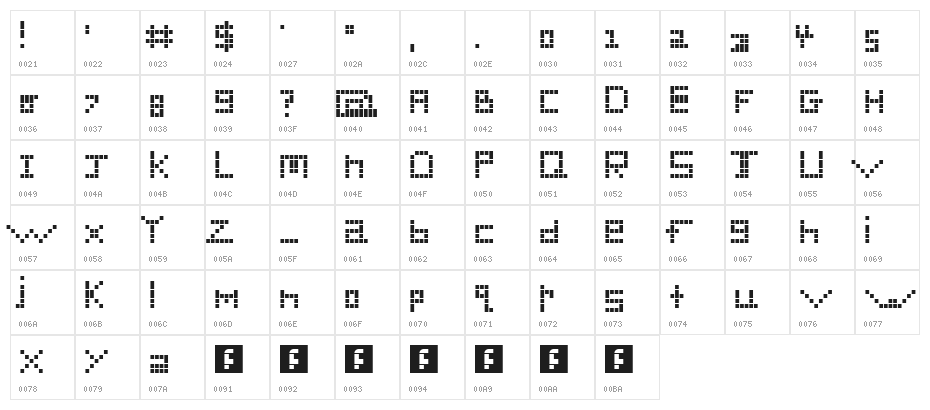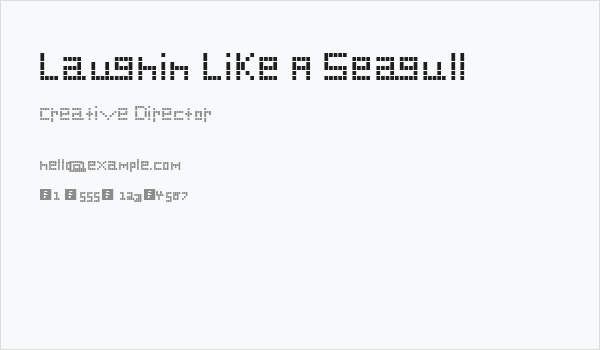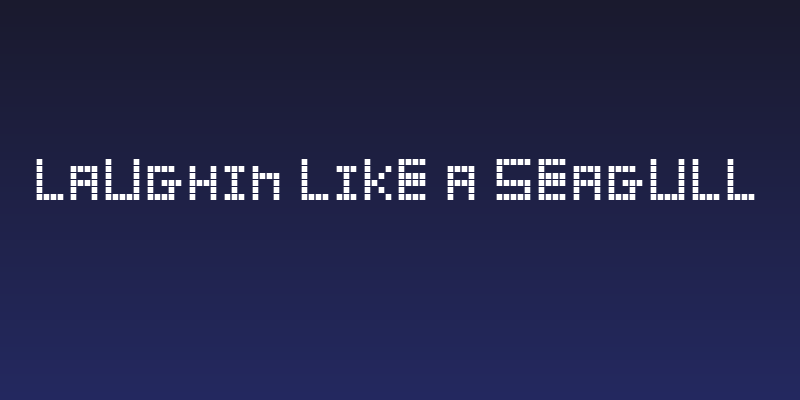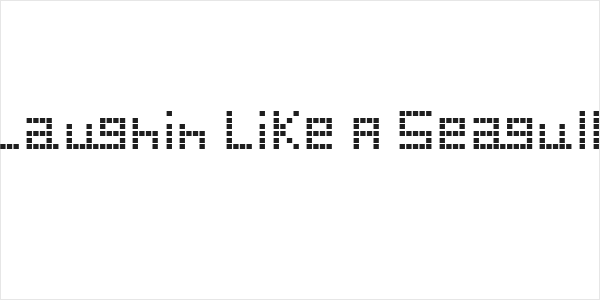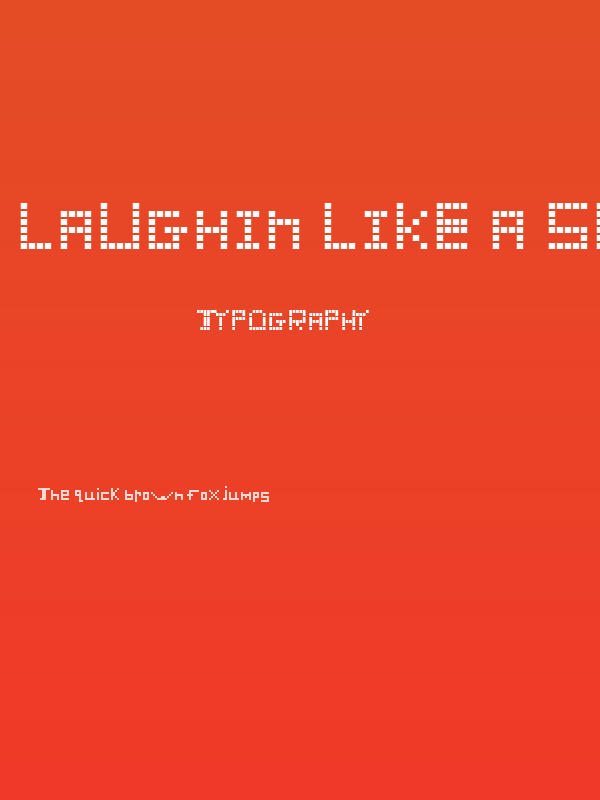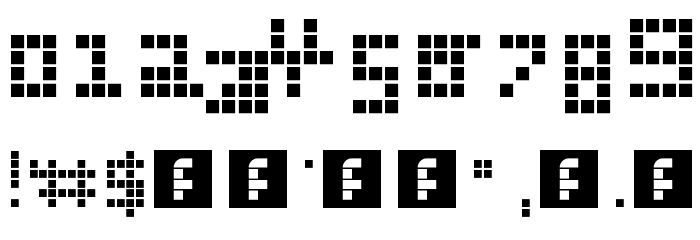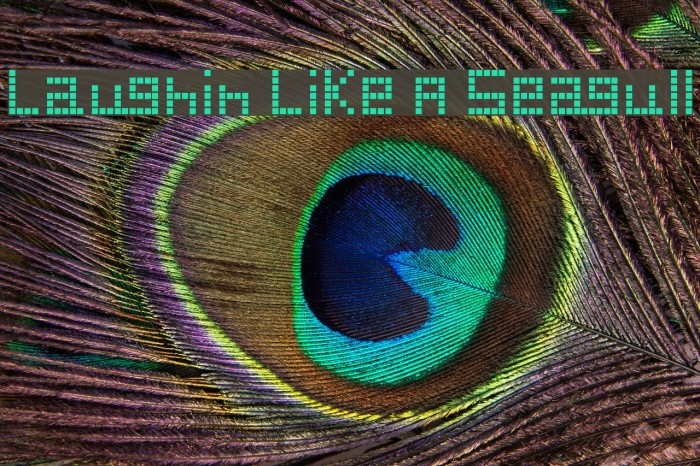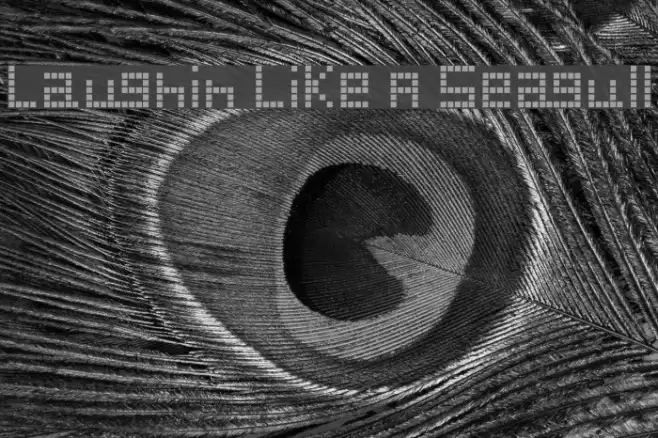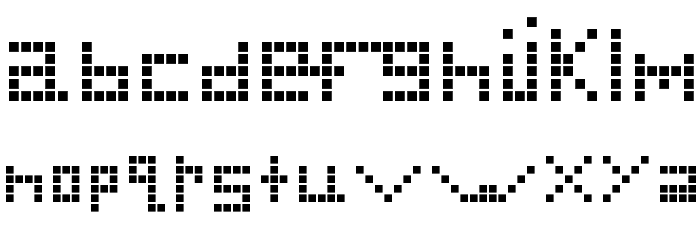
Laughin Like A Seagull Font
Laughin Like A Seagull Description
This font features a distinctive pixelated design, reminiscent of early digital displays and retro video games. Each character is constructed from a grid of small squares, giving it a blocky, geometric appearance. The uniformity of the squares creates a consistent texture across all characters, making it highly recognizable and unique. This style evokes a sense of nostalgia, ideal for projects that aim to capture a vintage digital aesthetic. The characters are evenly spaced, maintaining a clean and organized look. The font includes both uppercase and lowercase letters, numbers, and a selection of special characters, all adhering to the same pixelated theme.
| Overall Style | Vintage |
| Use Case | Logos, Headlines, Posters |
| Proposed Projects | Ideal for retro video game graphics, digital art projects, tech-themed posters, and nostalgic branding. |